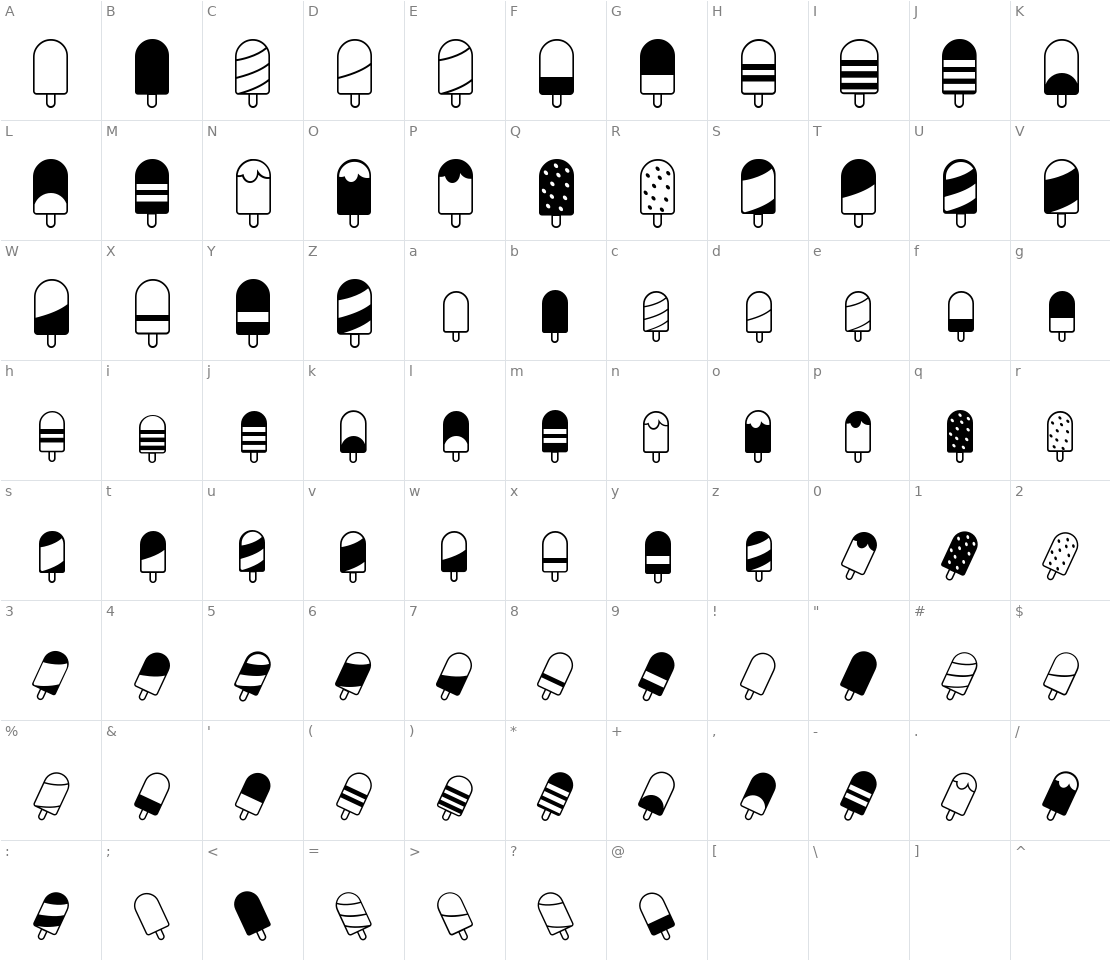
Ice Lolly Ding
Ice Lolly Ding is a dingbat font from MeCreativa filled with popsicle and ice cream illustrations, each glyph a different frozen treat. It's a seasonal novelty set built for summer-themed projects like menus, party invitations, social media graphics, and food packaging where a quick, playful icon does the job better than words.